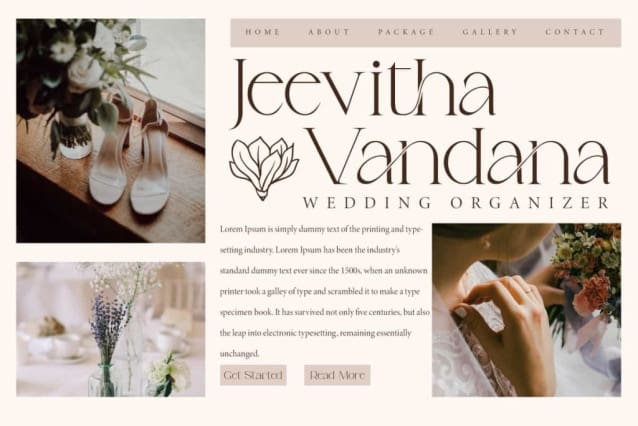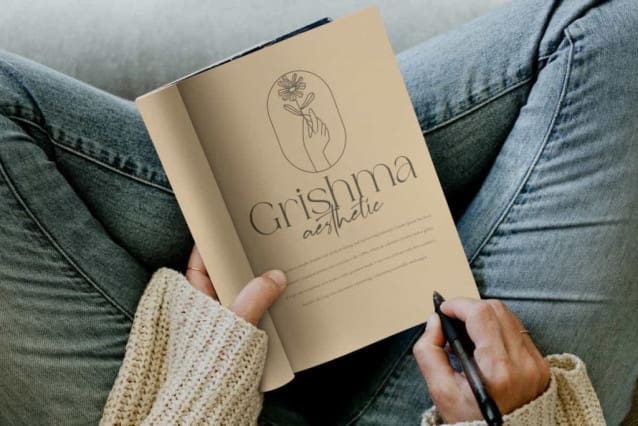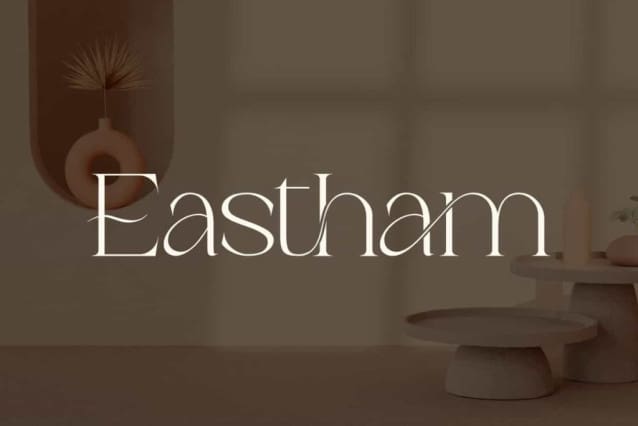
Eastham Font
Eastham Font is a stunning and gorgeous serif display font with an elegant feel, inspired by classy typography. This beautiful font will be perfect for any projects, it can be used for advertising, blog, brand image, invitation, label, layout design, logo, quotes, stationery, template design, website, and more!
Eastham Font includes full set of Uppercase and Lowercase Basic Characters, Numerals, Punctuation, and Symbol. This font has Ligature characters that it looks awesome. It’s perfect for accessories and jewelry, beauty product, event or wedding organizer, fashion, florist, furniture, real estate, spa salon, etc.